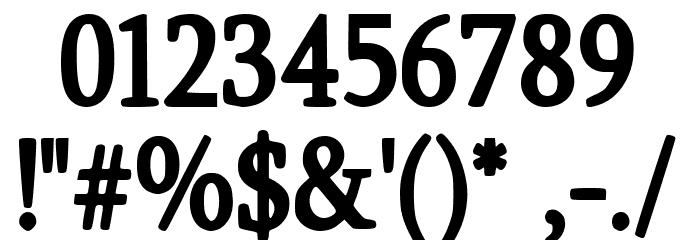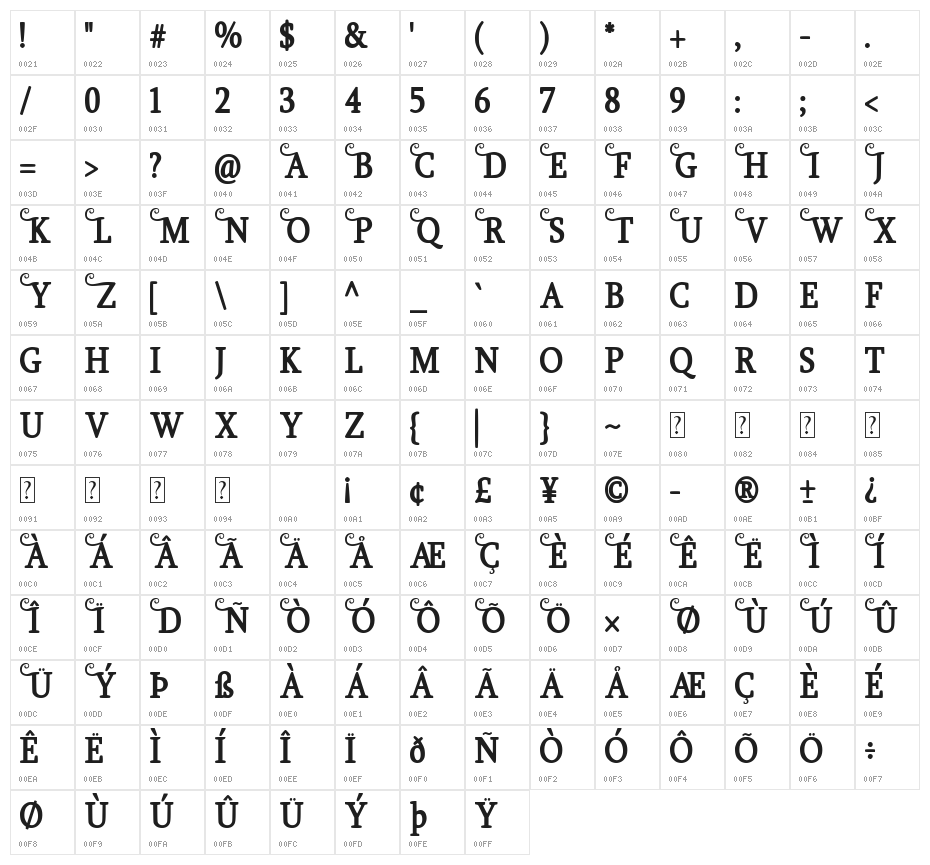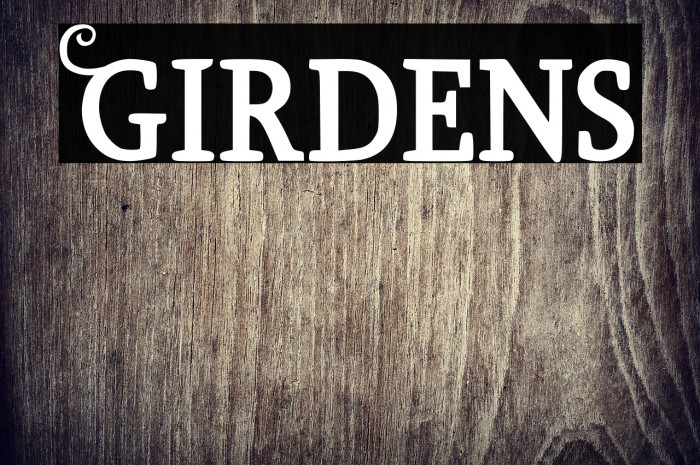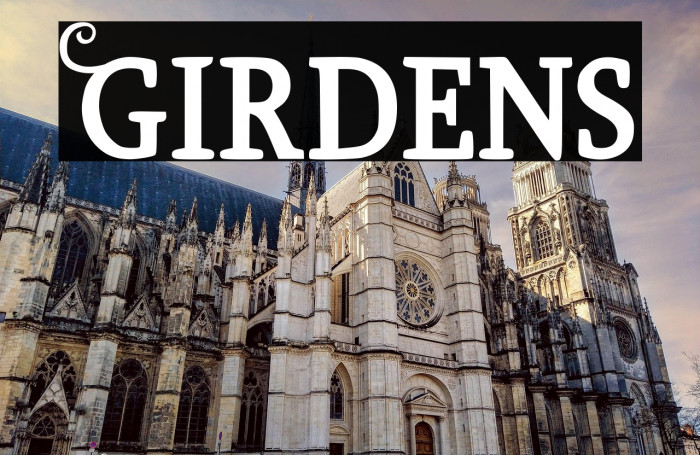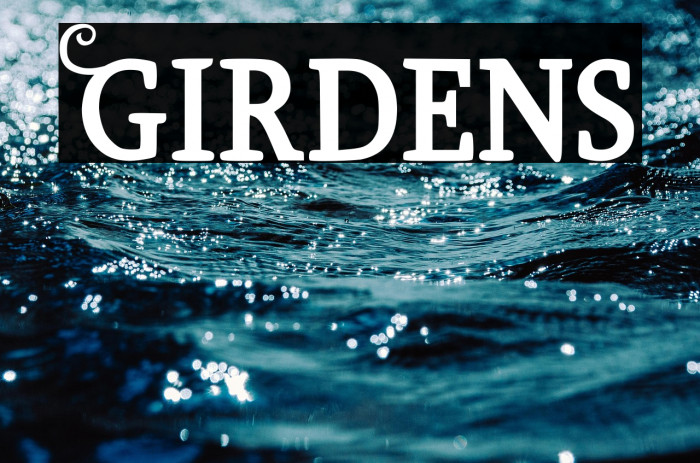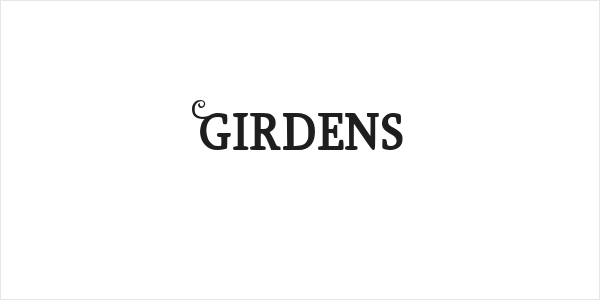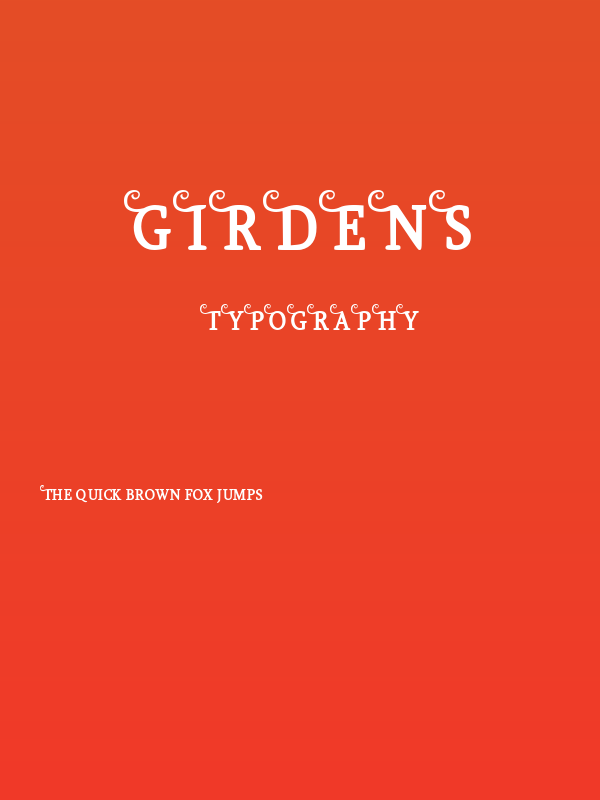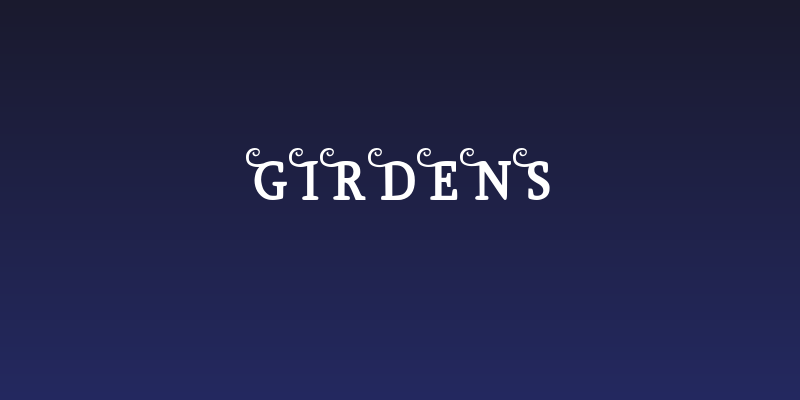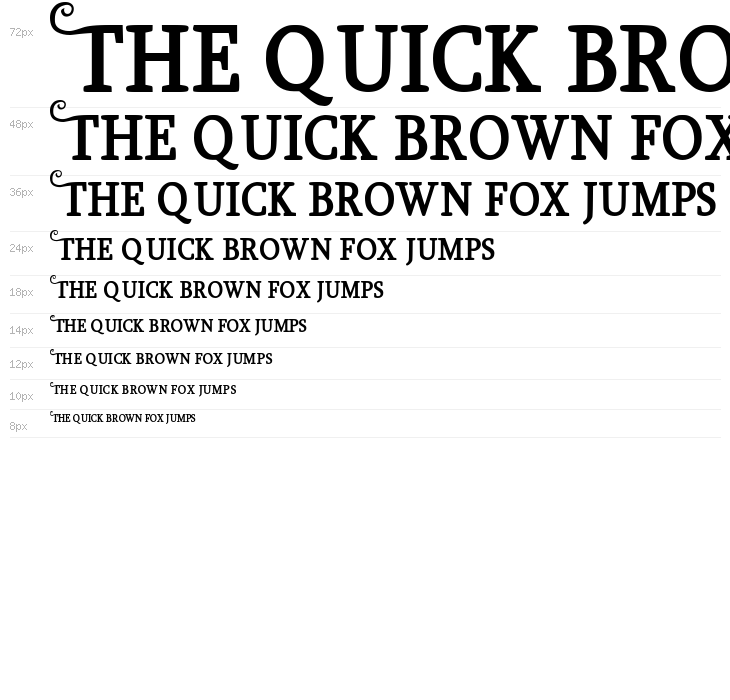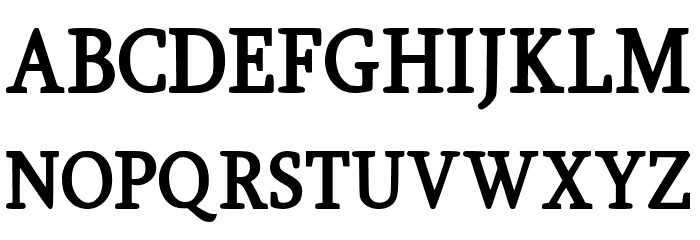
Girdens Font
Girdens Description
This font features a unique blend of decorative and classic elements, with uppercase letters adorned with whimsical curls that add a playful touch. The lowercase letters and numbers maintain a more traditional serif style, providing a balanced contrast. The overall design is bold and eye-catching, making it suitable for creative projects that require a distinctive and memorable typeface. The special characters are crafted with the same attention to detail, ensuring consistency throughout the font.
| Proposed Projects | Ideal for invitations, branding, posters, and any project needing a whimsical yet classic touch. |